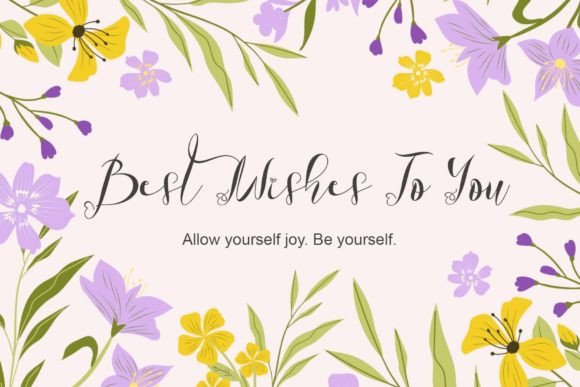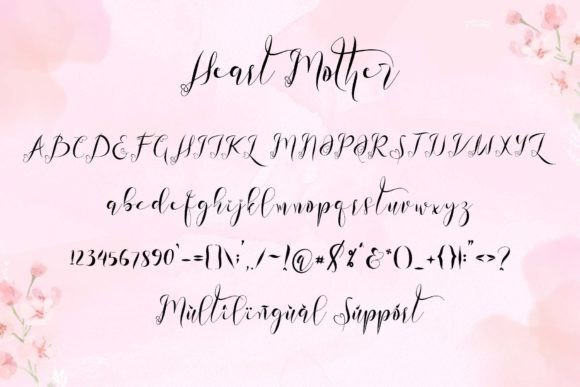
Introduction to Heart Mother Font
As a designer, have you ever found yourself in a creative moment where the perfect font eludes you? Perhaps you’re working on a wedding invitation and want to add a touch of elegance, or maybe you’re writing a love letter and want to convey your feelings with a beautiful, flowing script. Whatever the project, you’re in luck because we’re about to introduce you to the Heart Mother Font – a romantic script font that’s sure to steal the show.
With its delicate curves and loops, this font is a design resource that’s perfect for adding a touch of high-quality romance to any project. Whether you’re looking for a free download to use in a creative project or just want to elevate your designs with a beautiful, transparent background, the Heart Mother Font is an excellent choice.
Not only is this font visually stunning, but it’s also incredibly versatile. Its PUA encoded design means that you can access all glyphs and swashes effortlessly, making it a valuable addition to any designer’s toolkit.
Key Features of Heart Mother Font
- High-quality design resource with a unique, hand-drawn style perfect for creative projects.
- Perfect for designers looking for a unique and creative font to elevate their design projects.
Honest Review: Heart Mother Font
- High-quality design: The font is well-crafted, with a unique and creative feel.
- Transparent background: This feature allows for easy use in various design projects.
- Perfect for creative projects: The Heart Mother Font is ideal for projects that require a touch of elegance and sophistication.
- Limited font weights: The font only comes in a few weights, which may limit its versatility.
- No bold or italic versions: This may make it difficult to use in certain design scenarios.
Overall, I’m impressed with the Heart Mother Font. It’s a great design resource for designers who want a high-quality, unique font without breaking the bank. While it may have some limitations, I think it’s well worth using in creative projects.
Tips for Getting the Most Out of Heart Mother Font
For the best results, use Heart Mother Font on a high-quality design resource, such as a professional brochure or a creative project poster. You can also experiment with different font sizes, colors, and styles to create a unique and eye-catching design.
Heart Mother Font is a versatile design resource that can be used in a variety of creative projects, including wedding invitations, baby shower decorations, and mother’s day cards. It’s also a great option for designers who need a high-quality, free download font for their design projects.